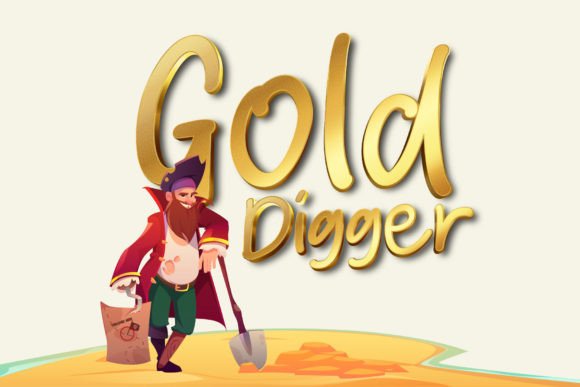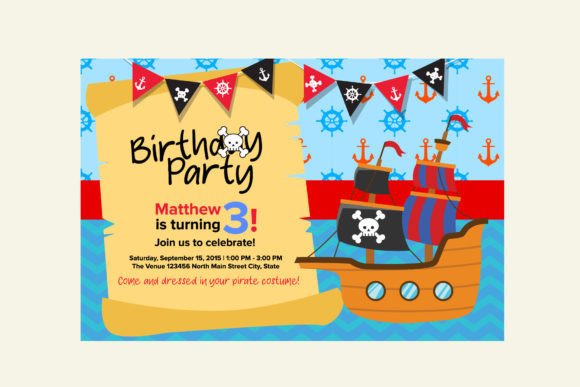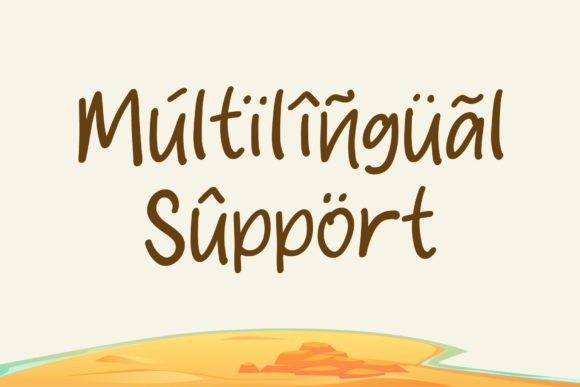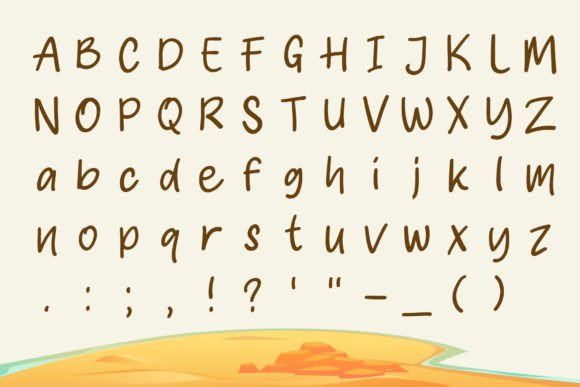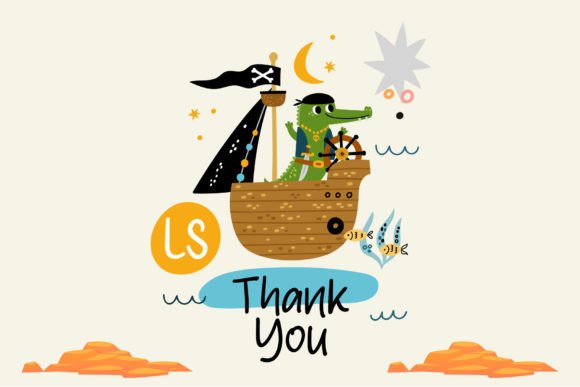
Introduction to Richie Rush Font
Richie Rush is a fun and quirky handwritten font.
Whether youโ€™re using it for crafts, digital design, presentations, or making greeting cards, this font has the potential to become your favorite go-to font, no matter the occasion .